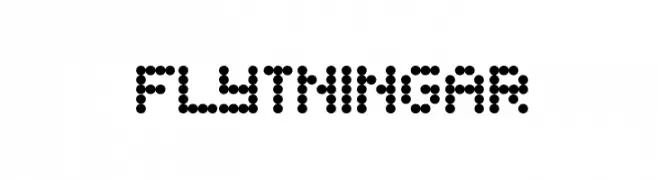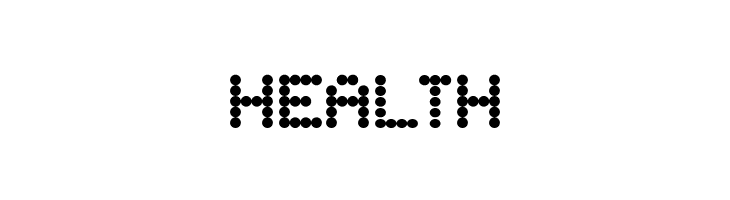
A playful, bubble-like font with rounded, dot-formed characters.
A modern, pixelated font composed of small circles, offering a playful and decorative style.
A dot matrix style font with a retro digital display aesthetic.
A dotted, pixelated font with a retro digital aesthetic.